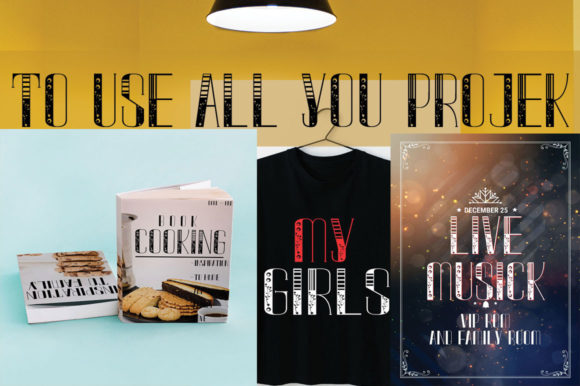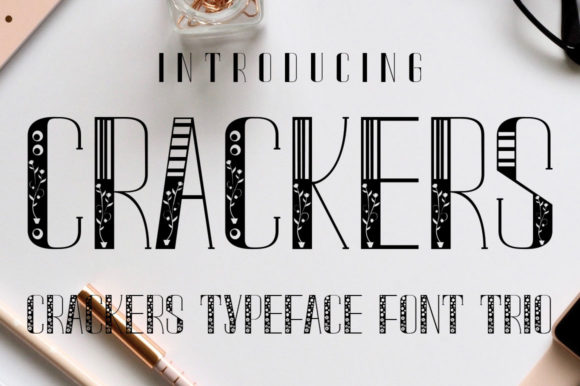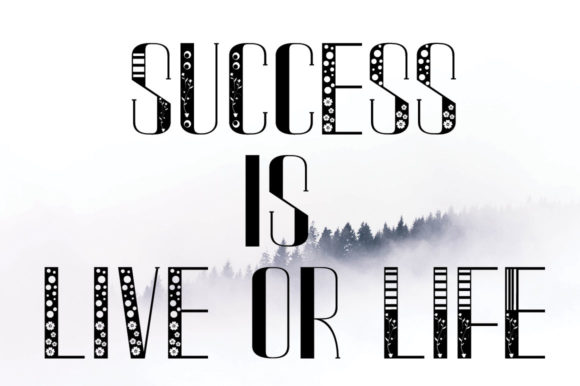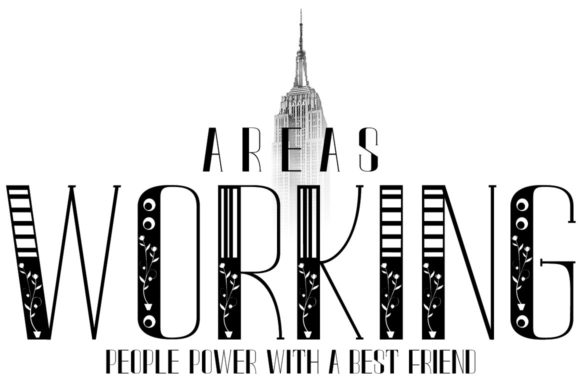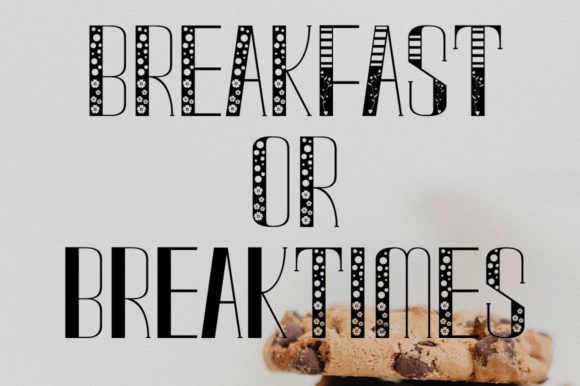
Discover the Whimsy in Crackers Font
There’s nothing quite like the thrill of staring at a blank page, waiting for the perfect idea to strike. It’s the moment when creativity takes over, and the possibilities seem endless. As designers, we’ve all been there – and it’s exactly this feeling that Crackers Font is designed to capture.
This adorable display font is more than just a pretty face; it’s a clever combination of cute and playful elements with intricate floral details. Crackers Font is perfect for adding a personal touch to any design idea, from wedding invitations to children’s book illustrations. Whether you’re looking to add a touch of whimsy or a dash of charm, this versatile font is sure to deliver.
With its unique blend of elegance and playfulness, Crackers Font is a valuable addition to any designer’s toolkit. So why settle for ordinary when you can add a pinch of magic to your next project?
Key Features of “Crackers Font”
- Unique Characteristics: The “Crackers Font” boasts a distinctive, hand-drawn aesthetic with a mix of bold and playful lines, making it perfect for adding a touch of whimsy to designs.
Designer Review: Crackers Font
Overall, I’m quite pleased with the Crackers Font. It’s a quirky, fun font that can add a playful touch to any design. ✨ Here are some of its strengths:
- Unique design: Crackers Font has a distinctive look that’s sure to grab attention.
- Highly customizable: The font offers a range of styles and weights, making it easy to adapt to different design needs.
- Perfect for playful branding: If you’re looking for a font that’s fun and lighthearted, Crackers Font is a great choice.
However, like any font, Crackers Font isn’t without its limitations. ⚠️ Here are a few things to keep in mind:
- May not be suitable for formal designs: While Crackers Font is great for playful branding, it may not be the best choice for more formal or professional designs.
- Can be overwhelming: With so many styles and weights to choose from, it can be easy to get carried away and end up with a design that’s too busy or overwhelming.
Overall, I’d say that Crackers Font is a solid choice for designers looking for a fun and quirky font. With a little caution and restraint, it can be a great addition to any design project.
The Crackers font is commonly used for:
- Designing logos and branding materials.
- Creating playful and whimsical text effects.
- Adding a vintage or retro touch to designs.